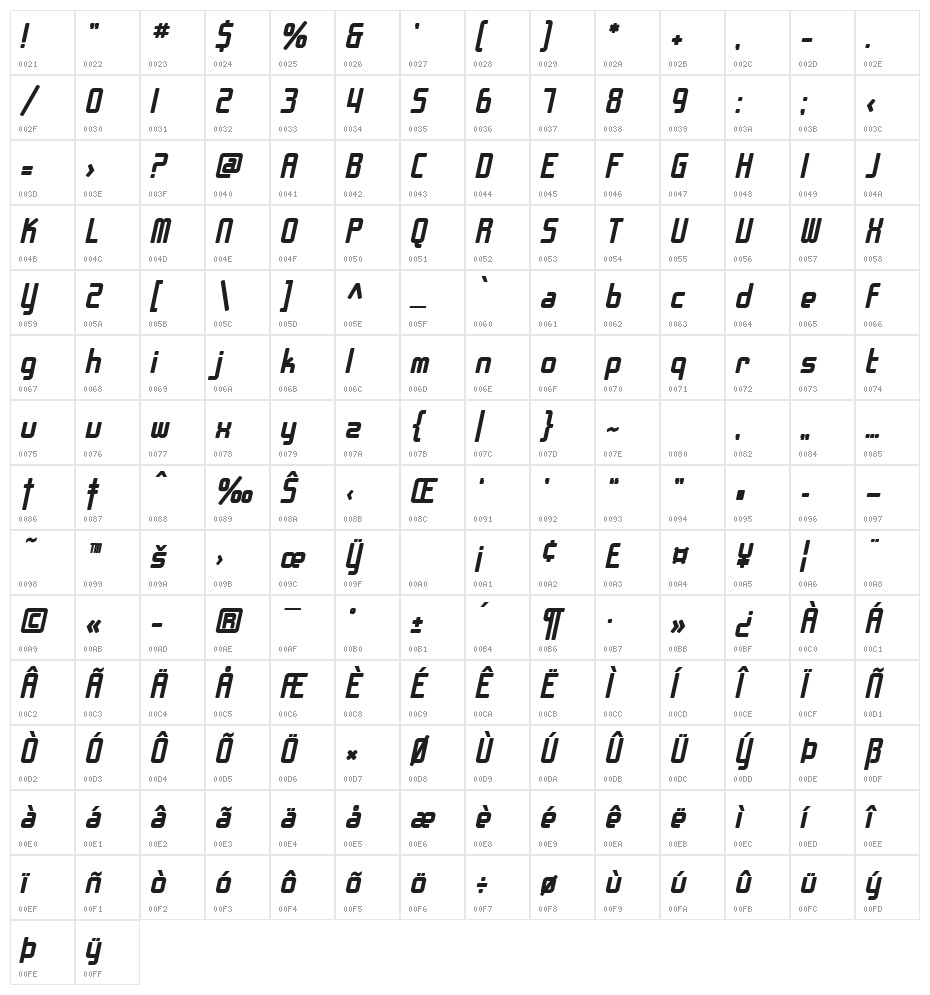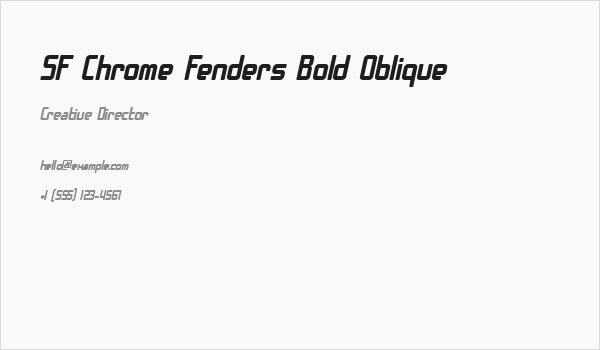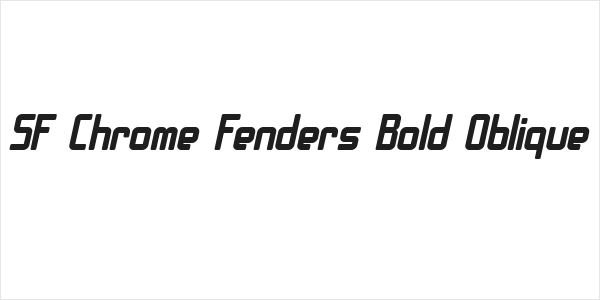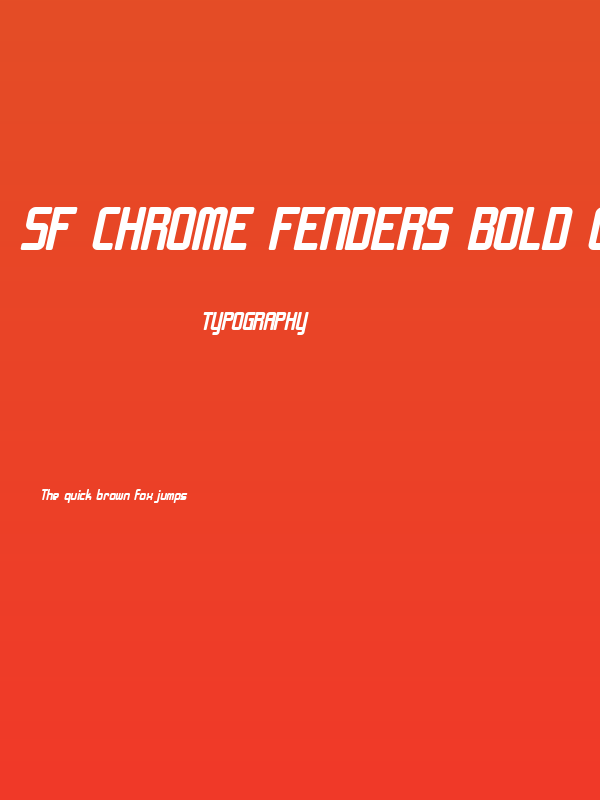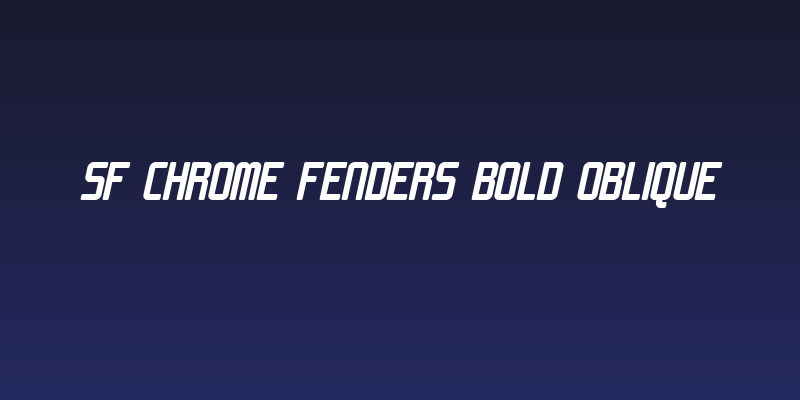
SF Chrome Fenders Bold Oblique Font
SF Chrome Fenders Bold Oblique Description
This font features a bold and oblique style with a futuristic and modern aesthetic. The characters are elongated with a slight slant, giving a sense of motion and speed. The strokes are thick and consistent, providing a strong visual impact. The overall design is sleek and streamlined, making it suitable for projects that require a contemporary and dynamic look. The uppercase and lowercase letters maintain a uniform width, enhancing readability while adding a unique flair. The numerals and special characters are designed to match the boldness and style of the alphabet, ensuring a cohesive appearance across all text elements.
| Proposed Projects | Ideal for branding, sports team logos, automotive advertisements, and tech-related projects. |